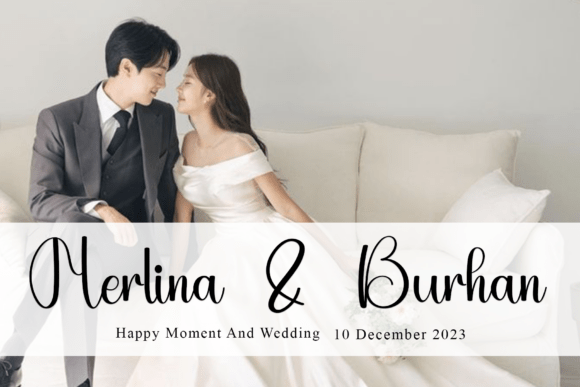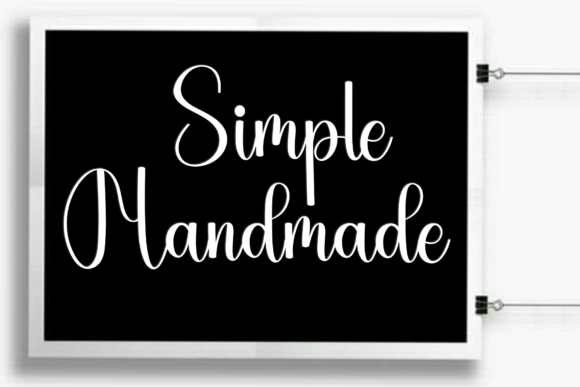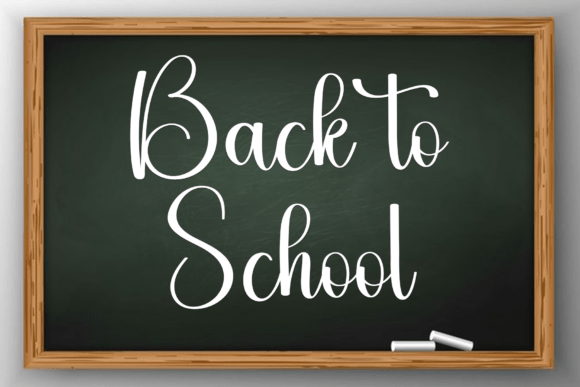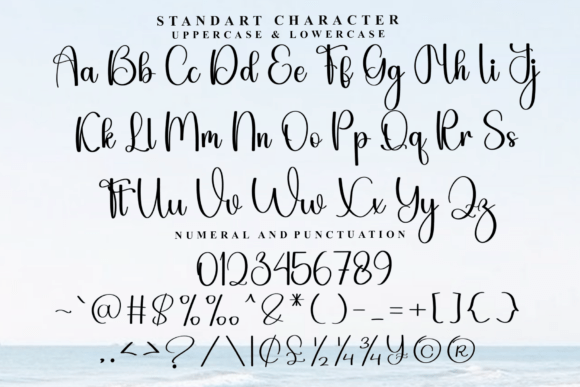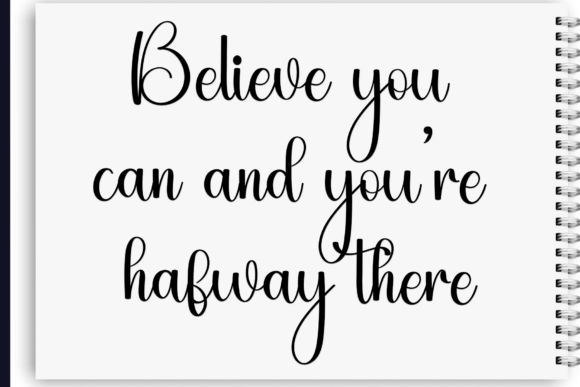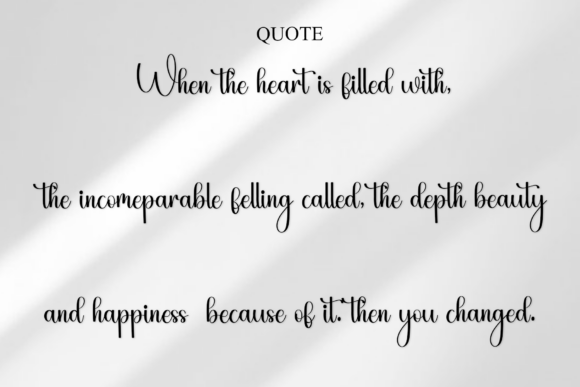
Introduction to Himalaya Sunflower Font
Have you ever stared at a blank canvas, waiting for inspiration to strike, only to find yourself scribbling down a rough idea with a pencil and a smile? That’s the magic of creating, and it’s exactly what the Himalaya Sunflower Font embodies. This charming, hand-drawn font is perfect for designers looking to add a personal touch to their creative projects.
Whether you’re working on a high-quality design for a social media graphic, a wedding invitation, or a personal blog, the Himalaya Sunflower Font is a valuable resource that can help bring your ideas to life. With its playful strokes and warm aesthetic, this font is sure to make your design stand out and leave a lasting impression on your audience.
Key Features of Himalaya Sunflower Font
- High-Quality Design: The Himalaya Sunflower Font is a premium design resource that offers a high-quality, unique, and elegant font suitable for various creative projects.
- Large Character Set: The Himalaya Sunflower Font features a large character set, including uppercase and lowercase letters, numbers, and punctuation marks, making it suitable for a wide range of design applications.
- Perfect for Creative Projects: This font is ideal for designers working on creative projects, such as logos, branding, packaging, and advertising materials, where a unique and elegant font is required.
Honest Review: Himalaya Sunflower Font
One of the things that stands out about the Himalaya Sunflower Font is its high quality. The font is well-designed and has a unique, sunflower-inspired aesthetic that adds a touch of whimsy to any design.
- Unique and creative design
- High quality and well-made
- Can be used for a variety of creative projects
Limitsations ⚠️
- Not suitable for formal or professional projects due to its playful design
Overall, I was impressed with the Himalaya Sunflower Font and would recommend it to anyone looking for a creative and unique design element for their next project.
To get the most out of the Himalaya Sunflower Font, experiment with different font sizes, colors, and combinations to create unique and eye-catching designs.
The Himalaya Sunflower Font is ideal for:
- Marketing materials and brochures